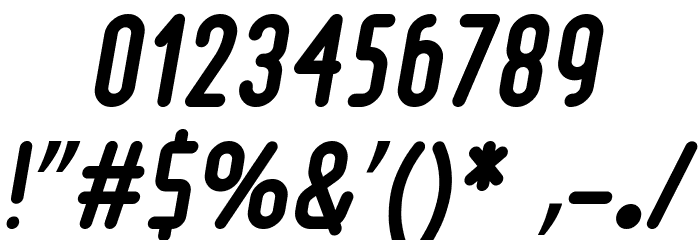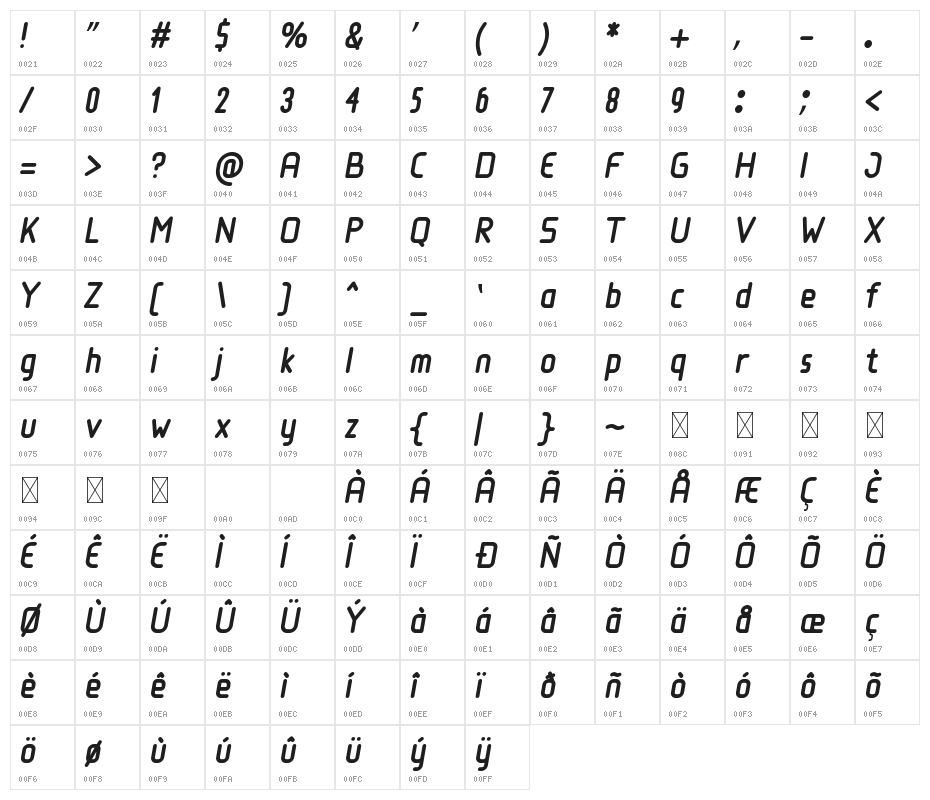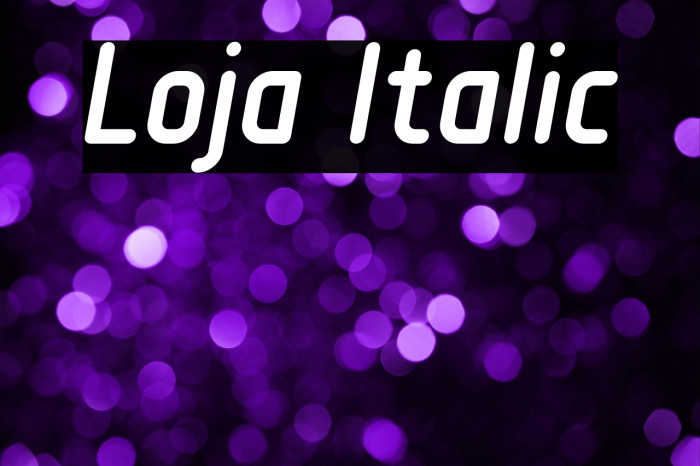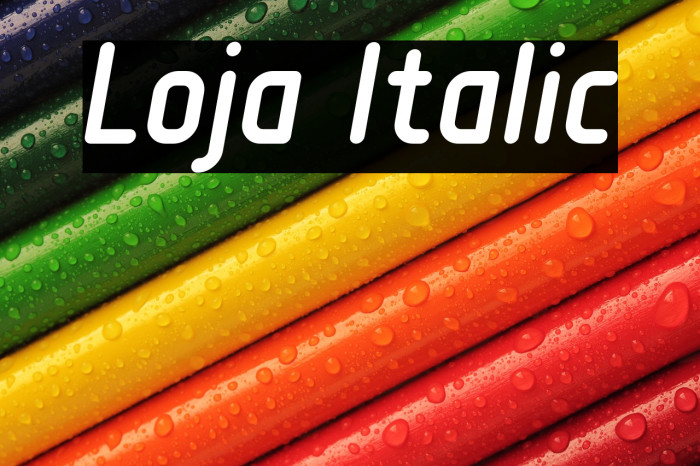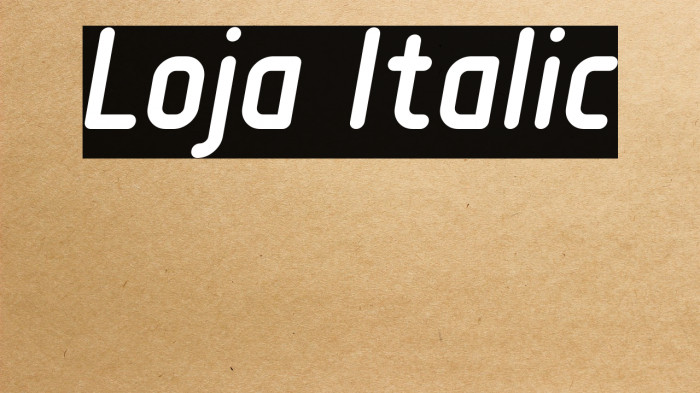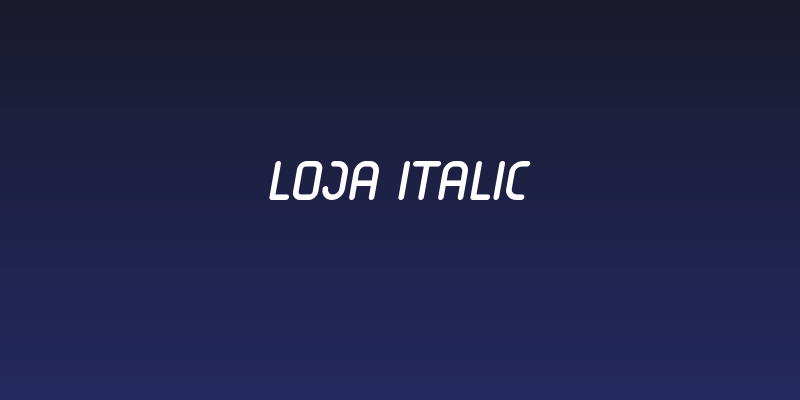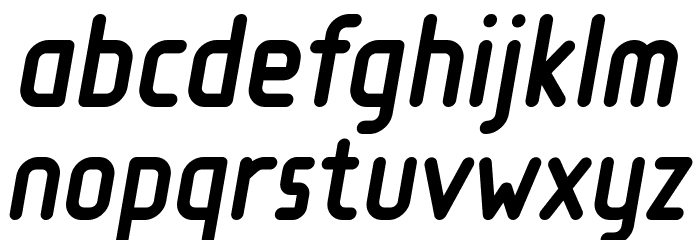
Loja Italic Font
Loja Italic Description
This font features a sleek, italicized design with smooth, rounded edges that give it a modern and dynamic appearance. The letters are slightly slanted, enhancing the sense of motion and fluidity. The uppercase and lowercase characters maintain a consistent style, with a uniform stroke width that contributes to its clean and polished look. The numerals and special characters are well-integrated, matching the overall aesthetic. This font's design is both functional and stylish, making it suitable for a variety of applications where a contemporary and energetic feel is desired.
| Use Case | Headlines, Logos, Digital interfaces |
| Proposed Projects | Ideal for branding, advertising, sports-related designs, and modern digital interfaces. |